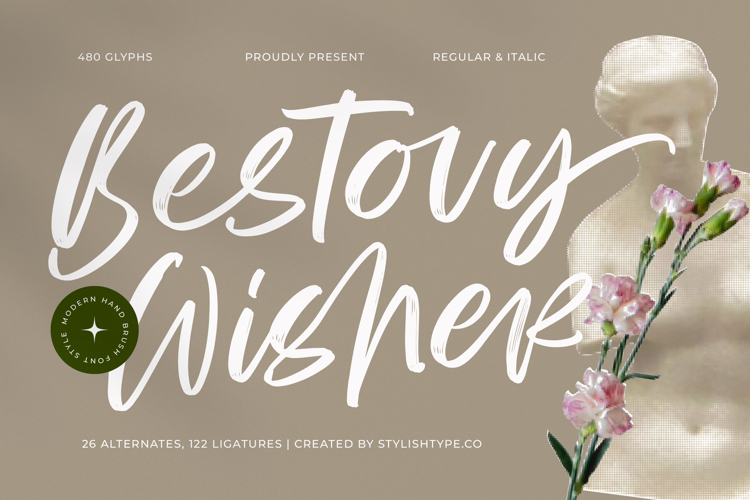
Bestovy Wisher - Modern Handbrush Font
Inject raw, handcrafted energy into your designs with Bestovy Wisher - Modern Handbrush Font. This dynamic script captures the spontaneous texture and sweeping fluidity of genuine brushwork, delivering an authentic yet thoroughly modern aesthetic. Designed for maximum impact, its bold strokes and expressive flow ensure immediate attention, making it the perfect choice for projects demanding both creativity and visual power. The font’s natural, organic movement provides a distinct human touch that digital precision often lacks, setting your creative output apart immediately.